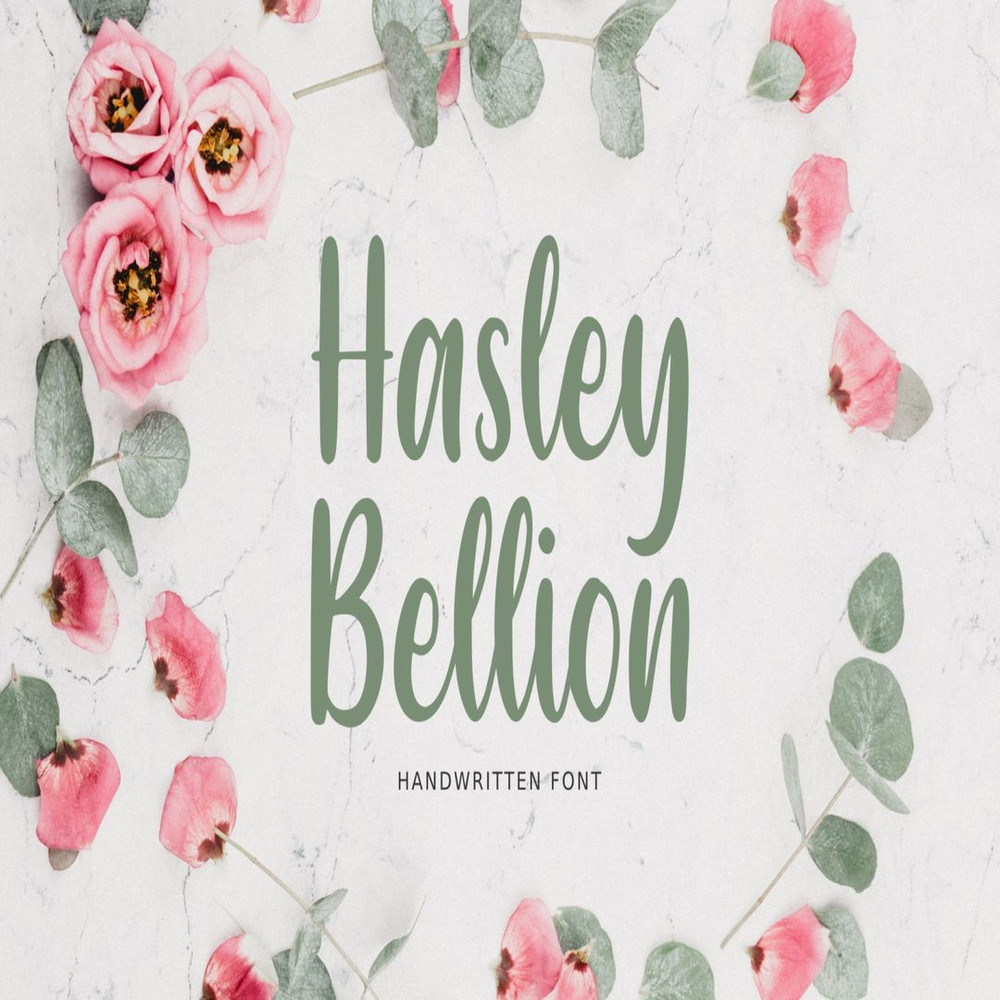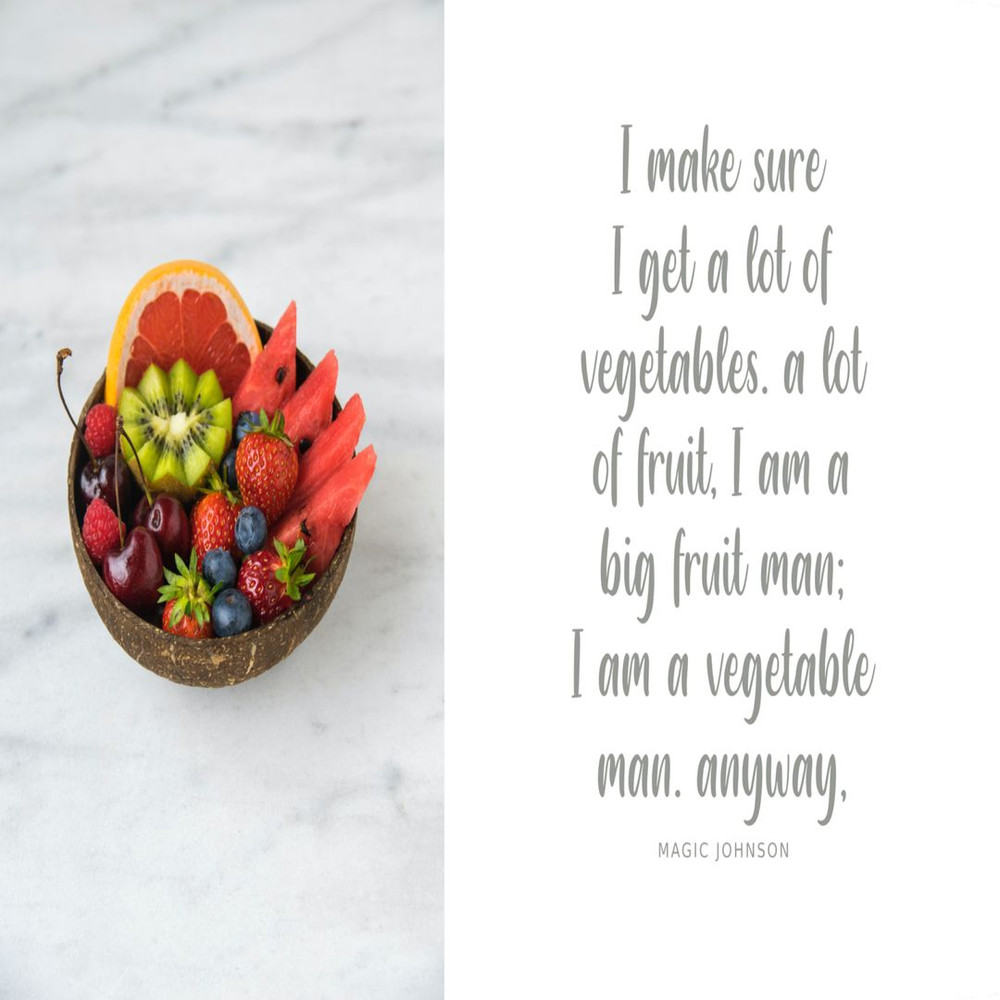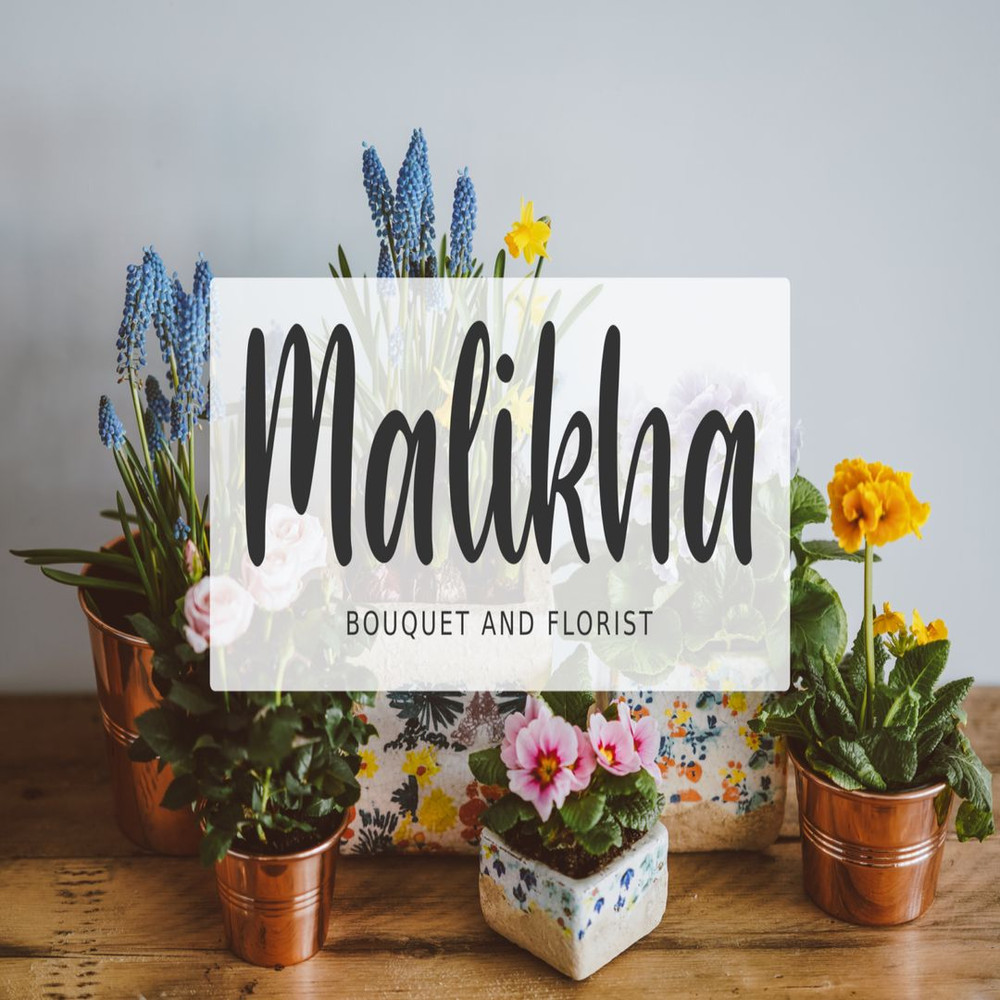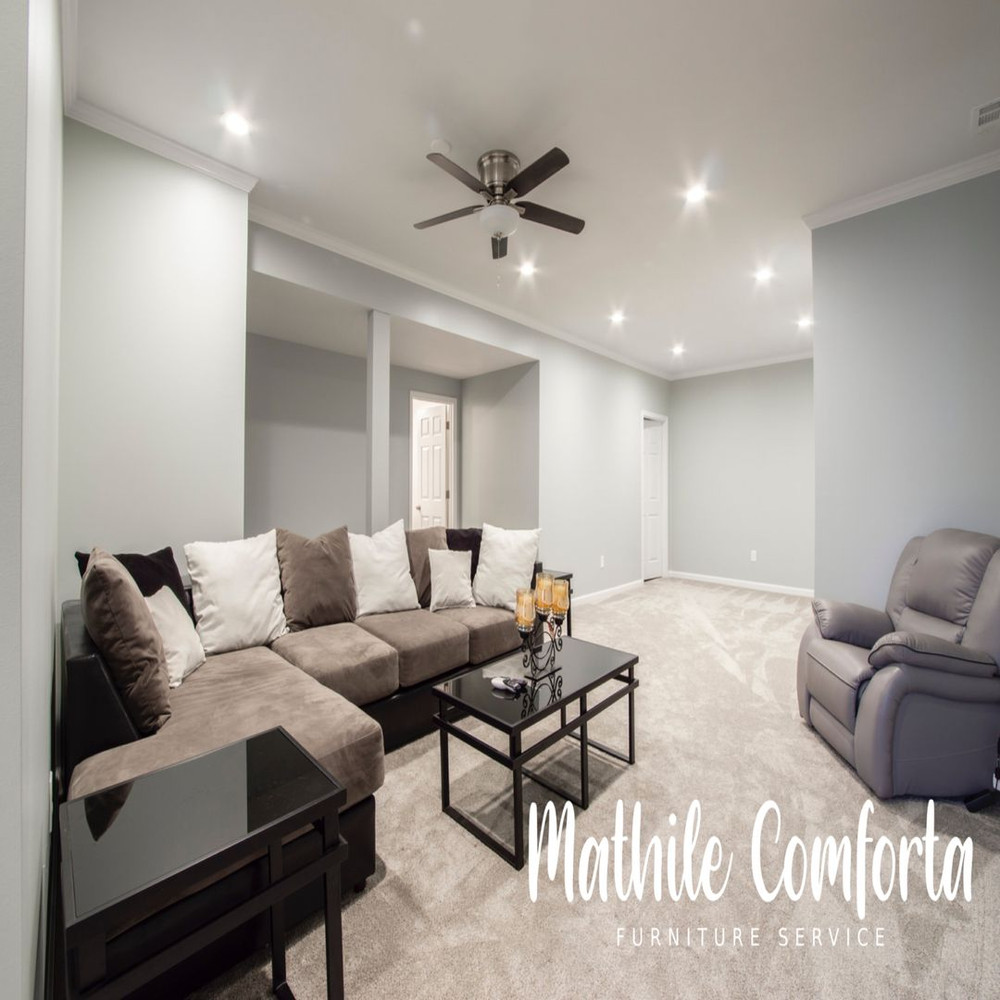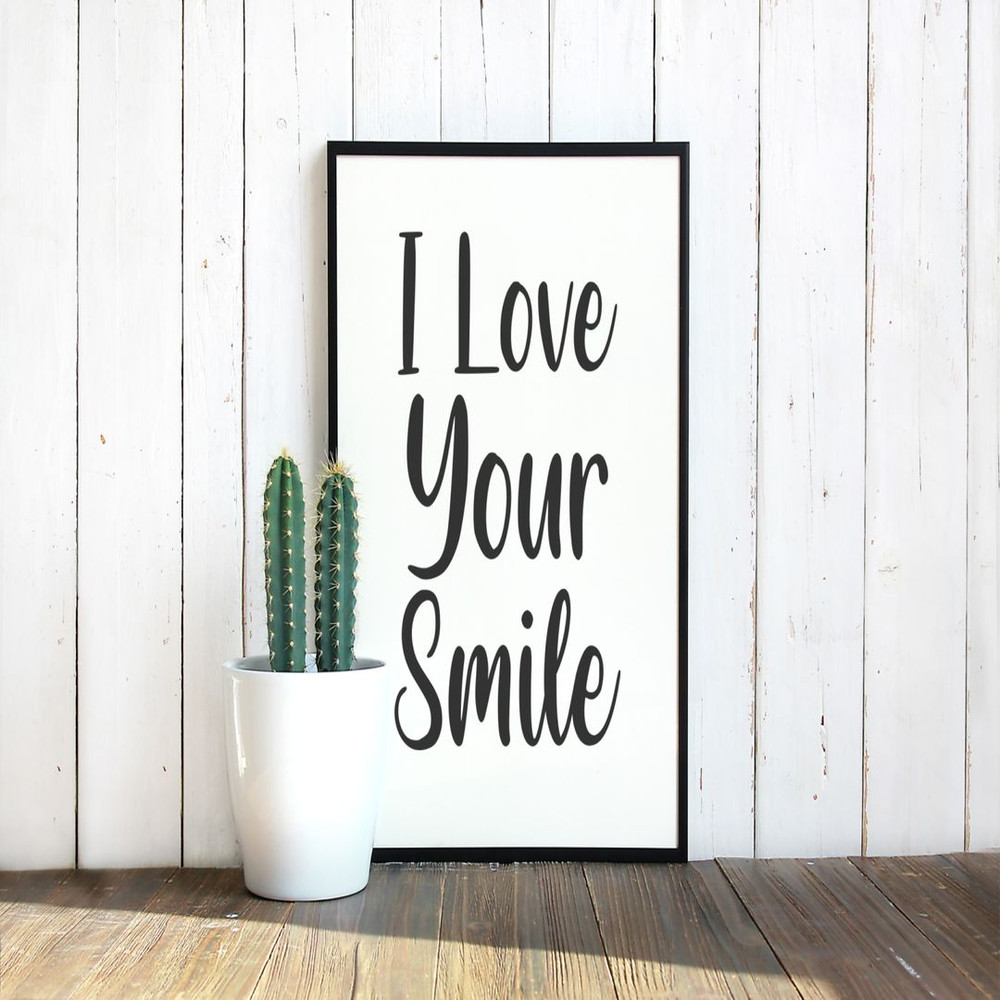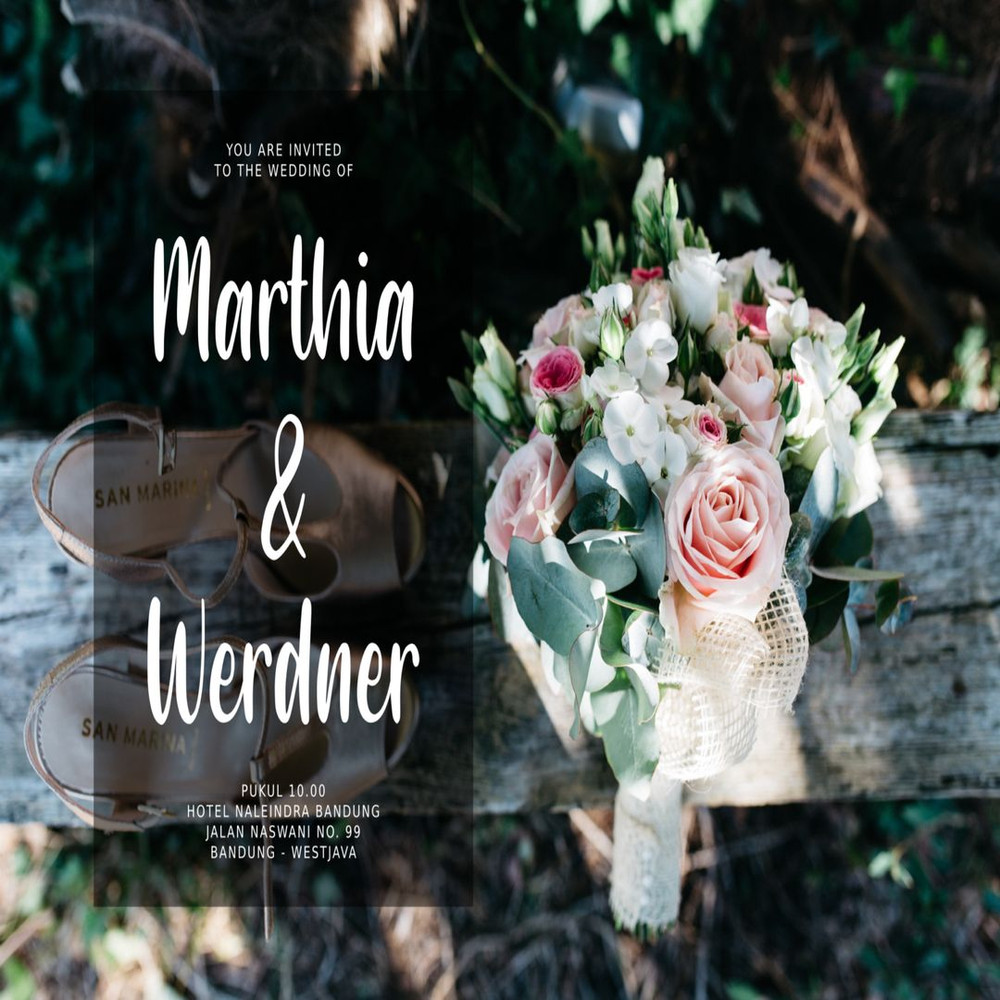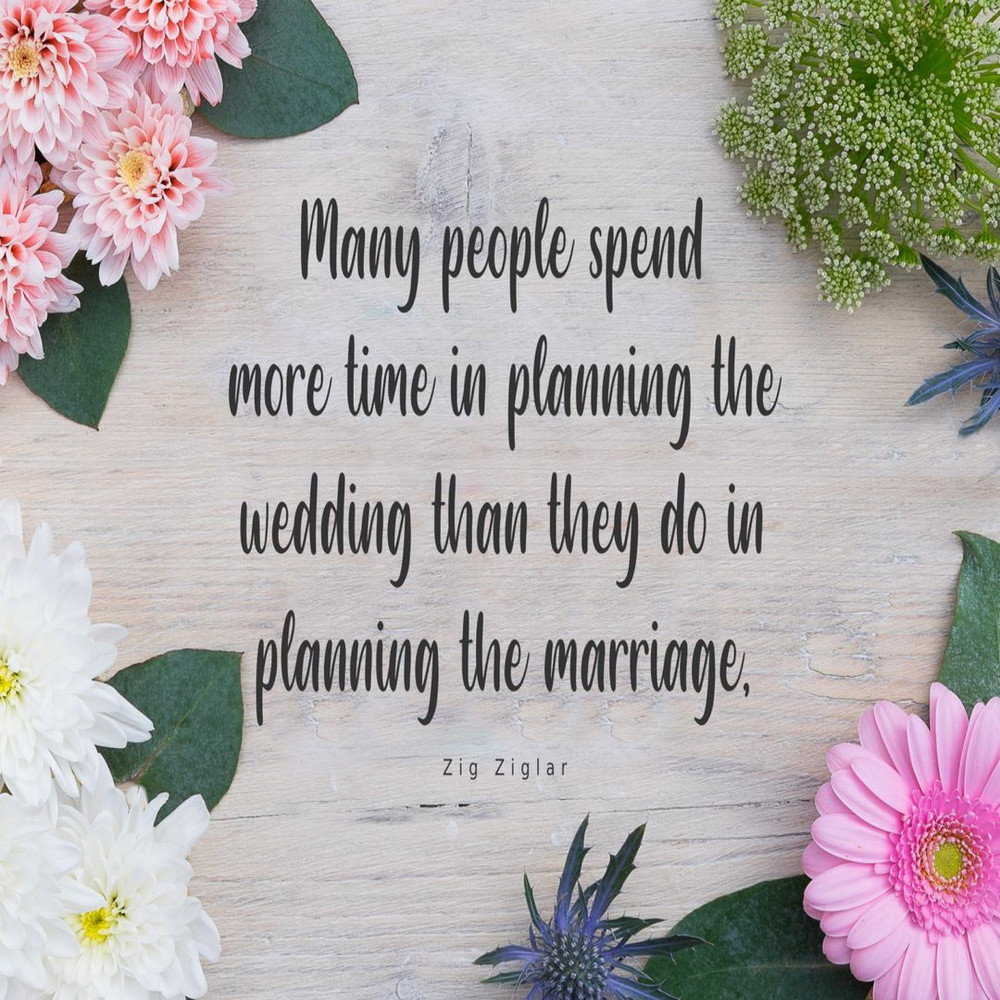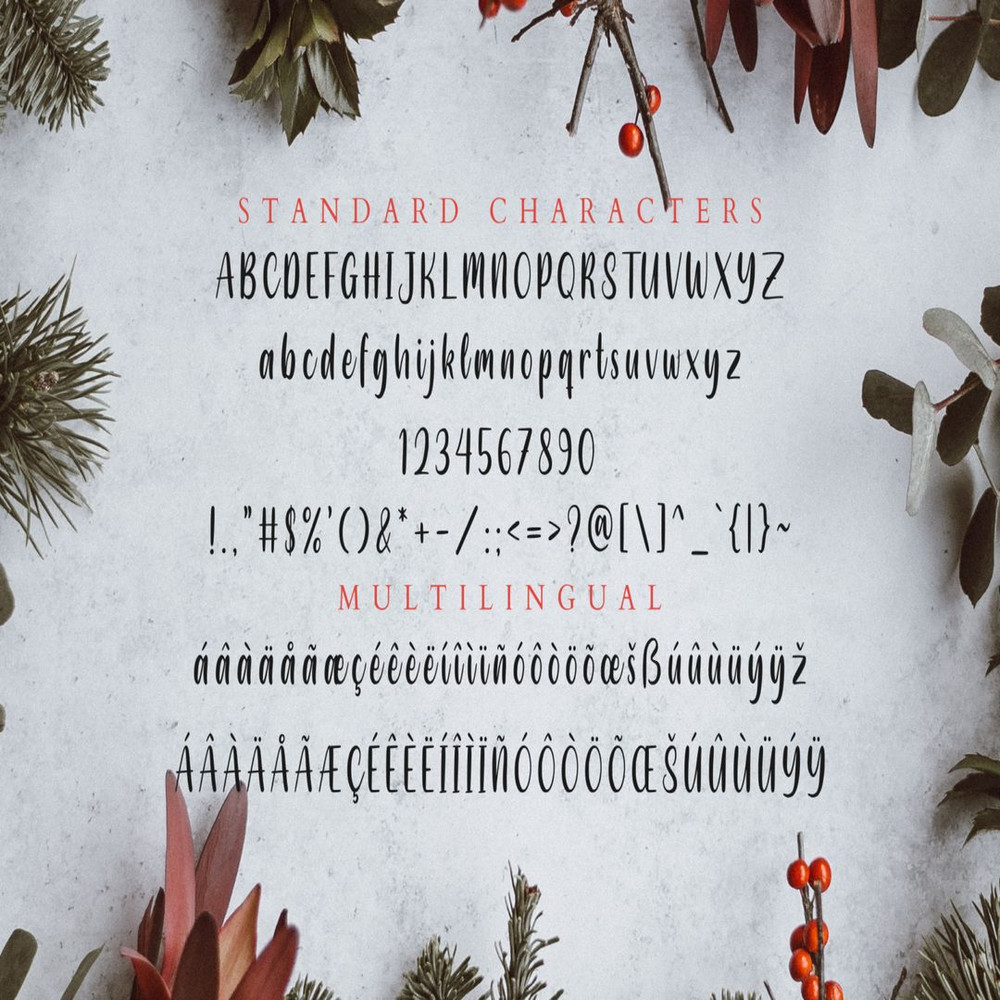
Hasley Bellion is a handwritten script font. It’s perfect for logos, product packaging, wedding invitations, branding, headlines, signage, labels, signature, book covers, posters, quotes and more.